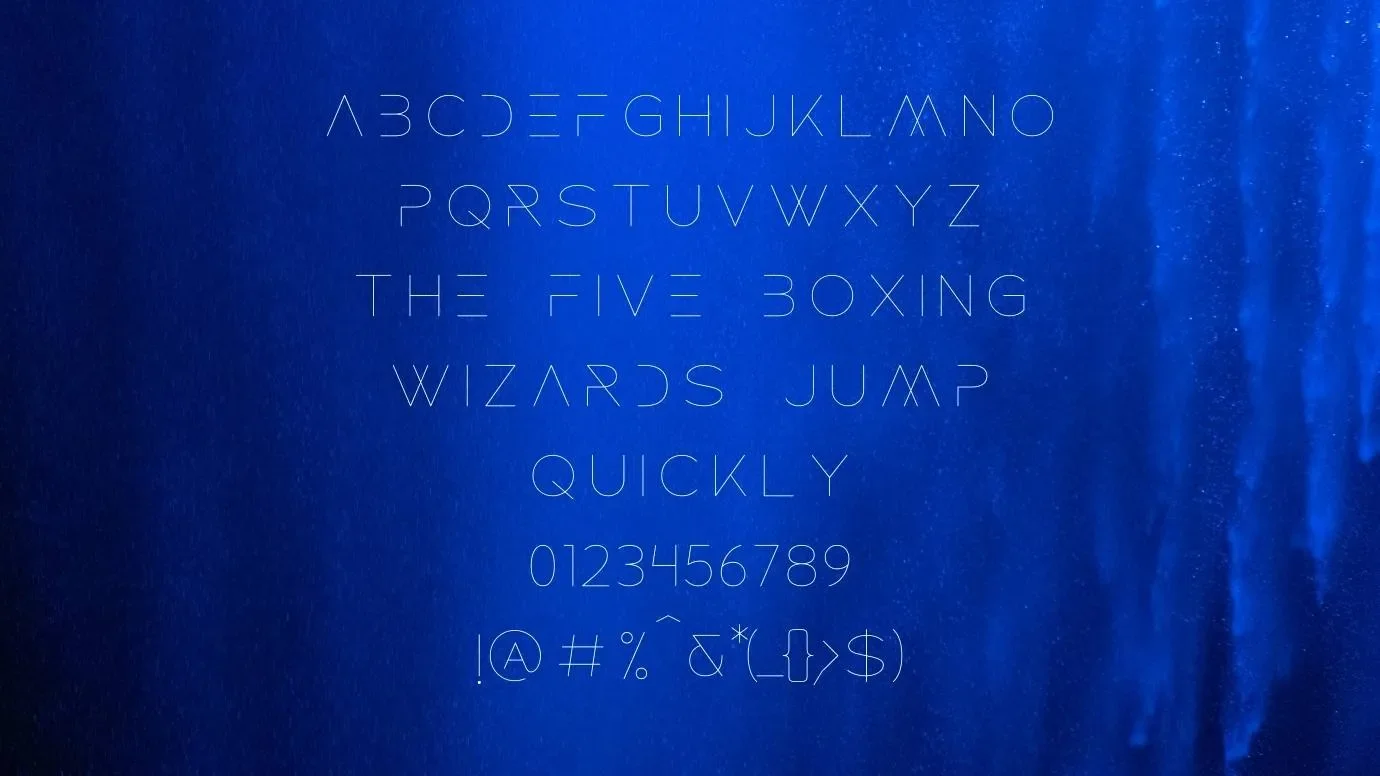
Dune Font is a famous typeface that comes in the fancy typeface. This font has 62 characters including only numbers, uppercase, and lowercase. The characters of this font are geometric sans serif characters and some are broken. This is the main reason that it is so popular all over the world.
Dune is an American fiction film that was founded by Denis Villeneuve. It was written by three famous writers that also belong to America. The font that is used in this movie title is very attractive. Jesta Designs designed this typeface for the first time. It has thin and sharp line characters that are best for many official design purposes.
The movie Dune is so famous that’s why this typeface is getting huge fame all over the world in the last few years. This font is best for decorative and fantastic theme designs. Many users make its pairing with roda bamboo font for making unique designs that are different from others.
Reason to Use Dune Font
You can use this fancy typeface for creating interesting homeware designs, catalog designs, art designs, posters designs, and so on. This beautiful typeface is perfect for modern card designs such as invitation cards, decorative cards, and birthday cards designs.
It is suitable for infographics, postcards, catalog designs, and wall murals designs. This attractive font is useful for templates and theme designs for different videos on Youtube, Facebook, and other social media channels. You can use it on your advanced and paid designs projects and create a number of unique designs by pairing with it the anurati font.
You can also use this outstanding font in offices for various purposes such as documents and notes. This is useful for creating eye-catching covers for fashion magazines, newspapers, and many other stylish brand projects.
What type of font is Dune Font?
This is a fancy font but the letters of this font are broken. The primary designer of this typeface is Jesta Designs.